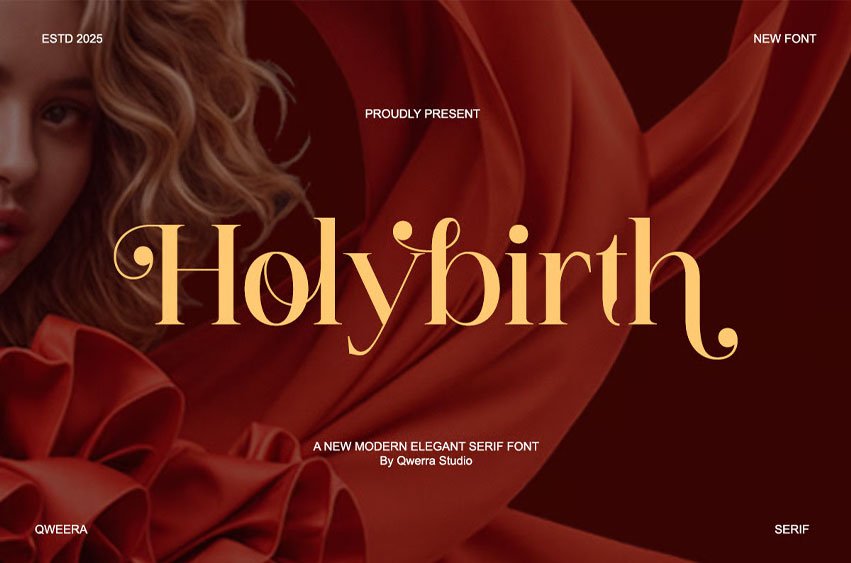
Holybirth Font is a modern, elegant serif font designed to bring a touch of sophistication to every project. Its graceful curves and soft contrast create an aesthetic blend of modern minimalism and timeless luxury.
Perfect for fashion logos, wedding invitations, product packaging, and editorial headlines, Holybirth elevates typography into a statement of beauty.
- Regular & Italic
- Alternates & Ligatures
- Smooth curves and sharp contrast
Perfect For: Luxury branding, fashion editorials, magazine titles, beauty packaging, and wedding stationery.